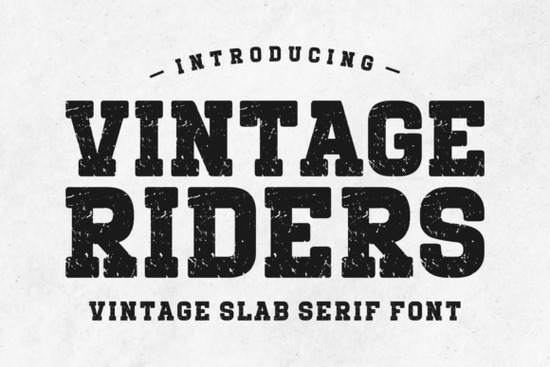
If you're looking for a bold, no-nonsense font that stands out in any project, Vintage Riders is a solid choice. This slab serif typeface brings a confident, grounded feel to your designs perfect for logos, posters, apparel, and branding work. Whether you're a small business owner, a craft maker, or someone exploring print-on-demand opportunities, this font adds instant presence without needing extra design tweaks.
What makes Vintage Riders stand out?
Unlike many fonts that try to be subtle or trendy, Vintage Riders leans into its strong, blocky structure. It’s built with thick, even strokes and sharp edges that give it a durable, timeless look. The design feels hand-crafted but remains clean and readable ideal for both digital and printed formats.
It works well across different styles: think retro signs, motorcycle club graphics, coffee shop branding, or even modern minimalist layouts where contrast matters. The font’s weight and consistency help it hold attention without overwhelming other elements.
Where can you use Vintage Riders effectively?
- Branding & logos: Great for businesses that want a tough, reliable image like auto shops, custom bike builders, or outdoor gear brands.
- Apparel & merch: Perfect for T-shirts, hats, and tote bags where bold text catches the eye at first glance.
- Posters & flyers: Use it for event announcements, concert promotions, or local market fliers.
You’ll find it especially useful when you need a font that doesn’t fade into the background. Its clarity under various sizes and on different materials (from paper to fabric) makes it dependable across projects.
How does it fit into a broader design toolkit?
Designers often mix fonts to create visual rhythm and hierarchy. Vintage Riders pairs well with lighter, more delicate typefaces think thin sans serifs or script fonts to balance boldness with softness. For example, using it for headlines while pairing it with a simple serif or rounded sans for body text creates a professional, thoughtful layout.
It’s also great when working with vintage or industrial themes. The font's character fits naturally with distressed textures, faded colors, or grunge overlays common in retro-inspired designs.
Why choose this font over others?
Not all slab serifs are created equal. Some feel stiff or overly mechanical. Vintage Riders avoids that by adding just enough personality through subtle stroke variations and balanced proportions. It’s not flashy, but it’s memorable.
For creative hobbyists, it’s a low-effort way to make designs feel intentional. You don’t need advanced skills to make something look good just drop in the font and adjust spacing slightly. That simplicity saves time and reduces decision fatigue.
Final thoughts: Is it right for your next project?
If you’re drawn to fonts that feel strong and authentic, Vintage Riders delivers. It’s not meant to be playful or delicate it’s built for impact. If your goal is to communicate confidence, durability, or heritage, this typeface supports that tone naturally.
It’s especially helpful if you’re building a consistent brand voice across products. Using one bold font consistently helps customers recognize your style instantly.